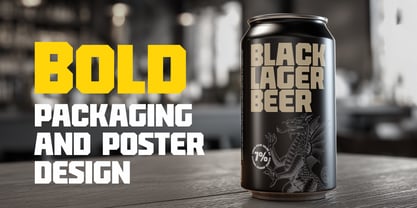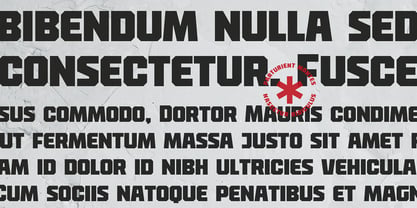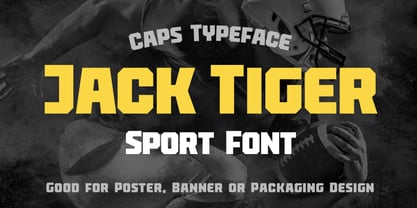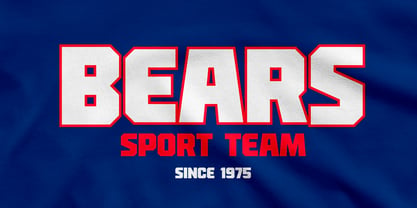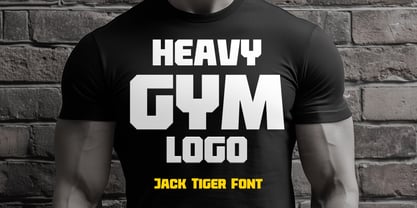
Jack Tiger
by Ledokolua
The Jack Tiger Font Family was designed by Oleg Sibiriakov and published by Ledokolua. Jack Tiger contains 1 styles. More about this family
Jack Tiger is a bold display typeface with a strong geometric foundation and sharp, structured forms. Designed to deliver clarity and impact, it combines athletic-inspired aesthetics with a clean, modern construction. Its compact proportions and angular details give the typeface a confident and energetic feel, making it suitable for a wide range of visual applications. From sports and collegiate-style graphics to contemporary branding and editorial layouts, Jack Tiger brings a solid and distinctive voice to any design. The font performs best in headlines, logos, and large-format compositions, where its bold character and clear shapes can fully stand out. At the same time, it remains versatile enough for packaging, posters, labels, and digital media. Jack Tiger is a reliable choice when you need a typeface that feels strong, modern, and visually striking without being overly decorative.
Ledokolua is an independent type foundry founded by graphic designer and type creator Oleg Sibiriakov. With nearly three decades of experience in graphic design, Oleg brings a strong understanding of how typography works in real design environments. His professional focus on packaging design and corporate identity has shaped a practical, design-driven approach to type development — one that values clarity, character, and strong visual impact. The first Ledokolua typeface was created in 1997. Since then, typography has remained an essential part of Oleg’s creative work, evolving alongside his experience in branding and visual communication. Ledokolua specializes in confident, expressive typefaces with a distinctive personality. The foundry’s designs are created with real-world applications in mind — from packaging and brand identities to editorial and print design — where typography plays a key role in shaping a memorable visual presence. The studio’s philosophy is simple: strong ideas, balanced forms, and typefaces that give designers powerful tools to build bold and recognizable brands.